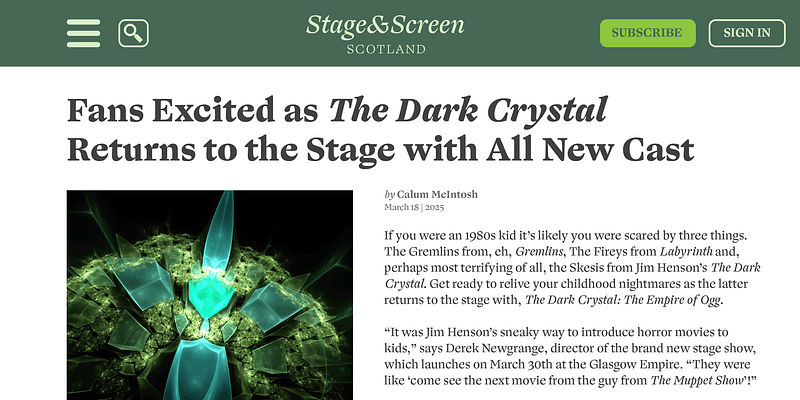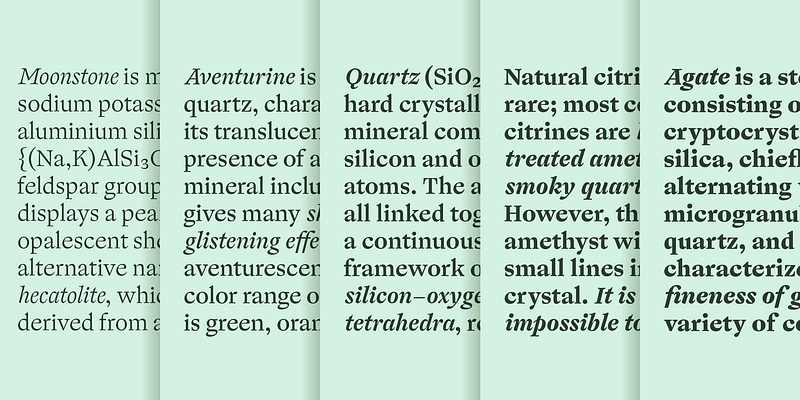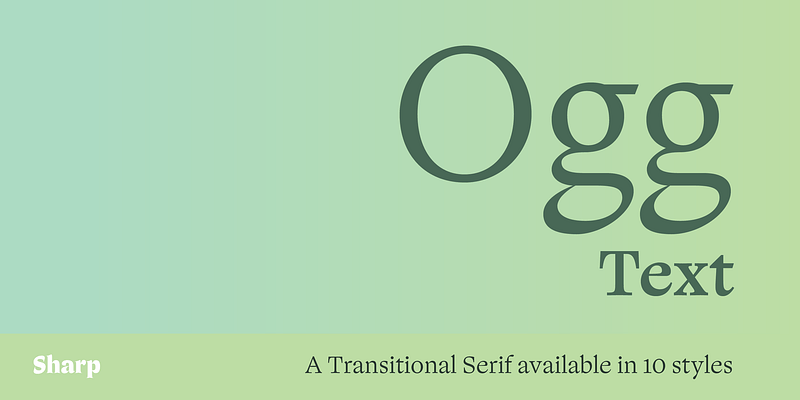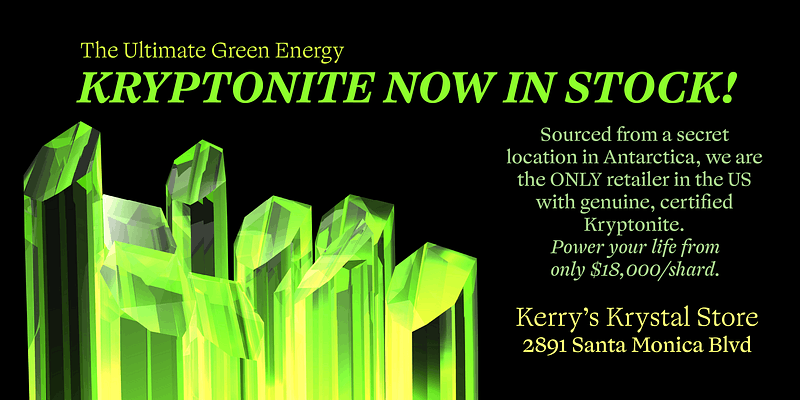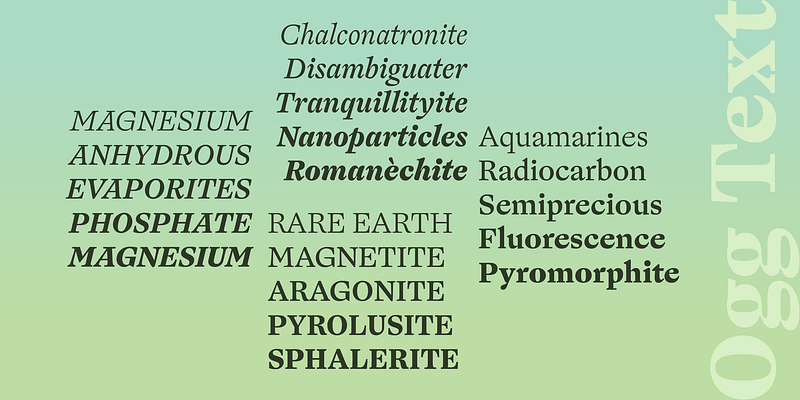
Ogg Text is the complementary text face of Ogg, the seminal display serif by Lucas Sharp inspired by the hand lettering of 20th century book designer and calligrapher Oscar Ogg. Ogg Text infuses the signature calligraphic styling of its predecessor with new and old transitional and oldstyle text face models. Signature moves found throughout Ogg’s calligraphic works were explored, exaggerated, and refined in the high contrast design space of Ogg. The original lettering samples are a combination of calligraphic stroke, contour drawing, and white-out (reduction). This combination of calligraphic and constructed forms became the perfect jumping off point for typographic exploration.